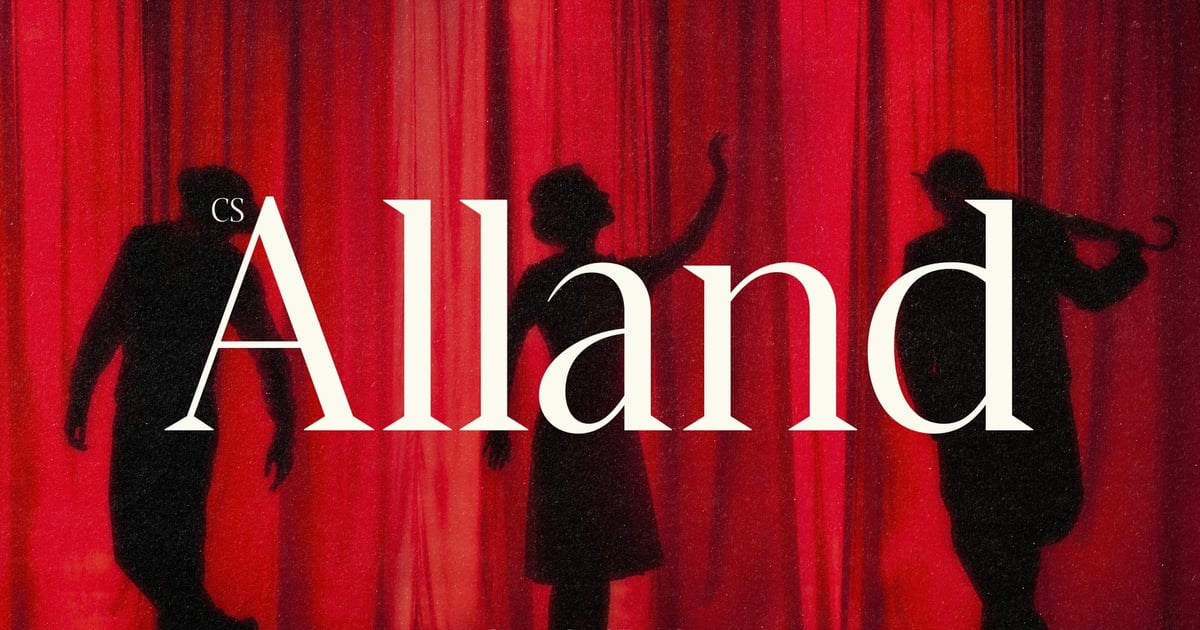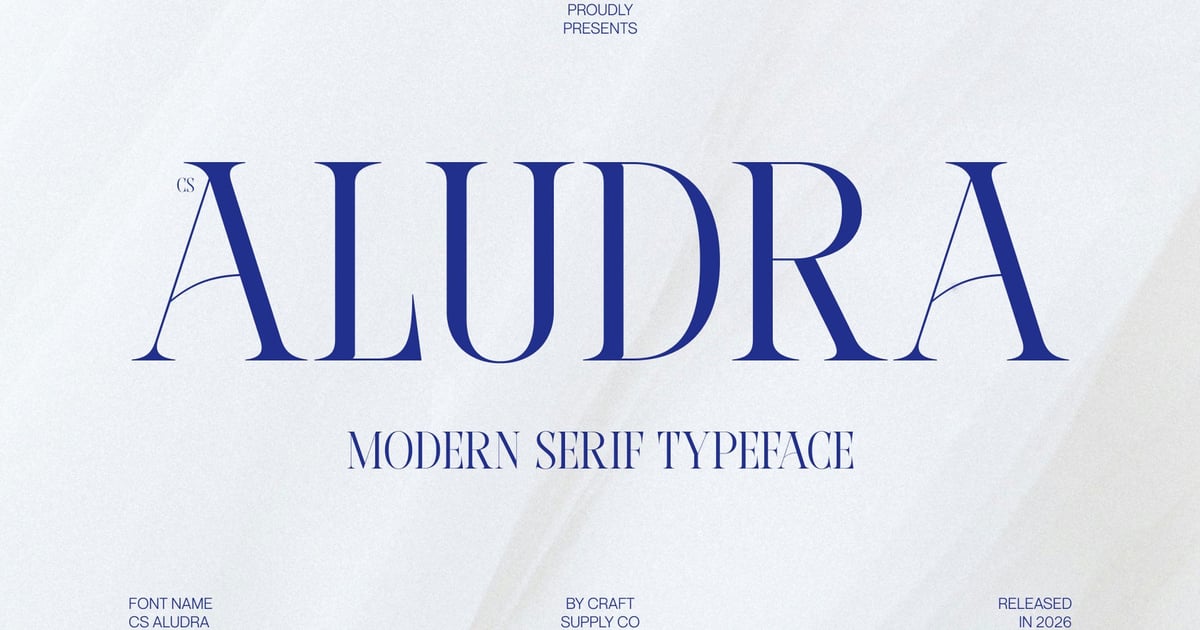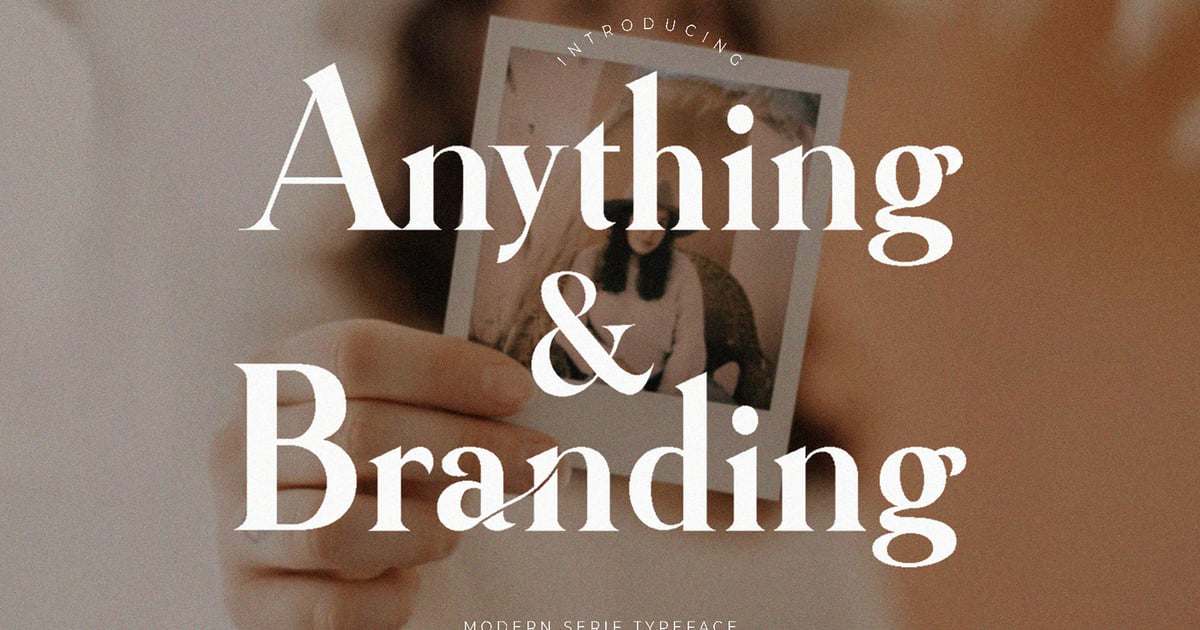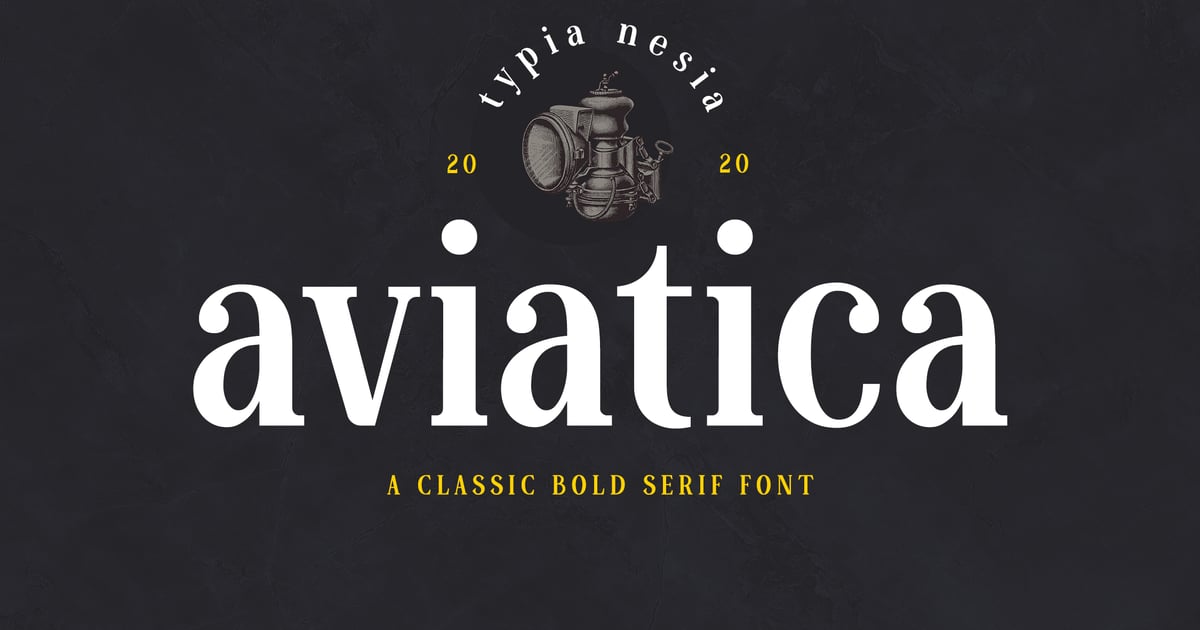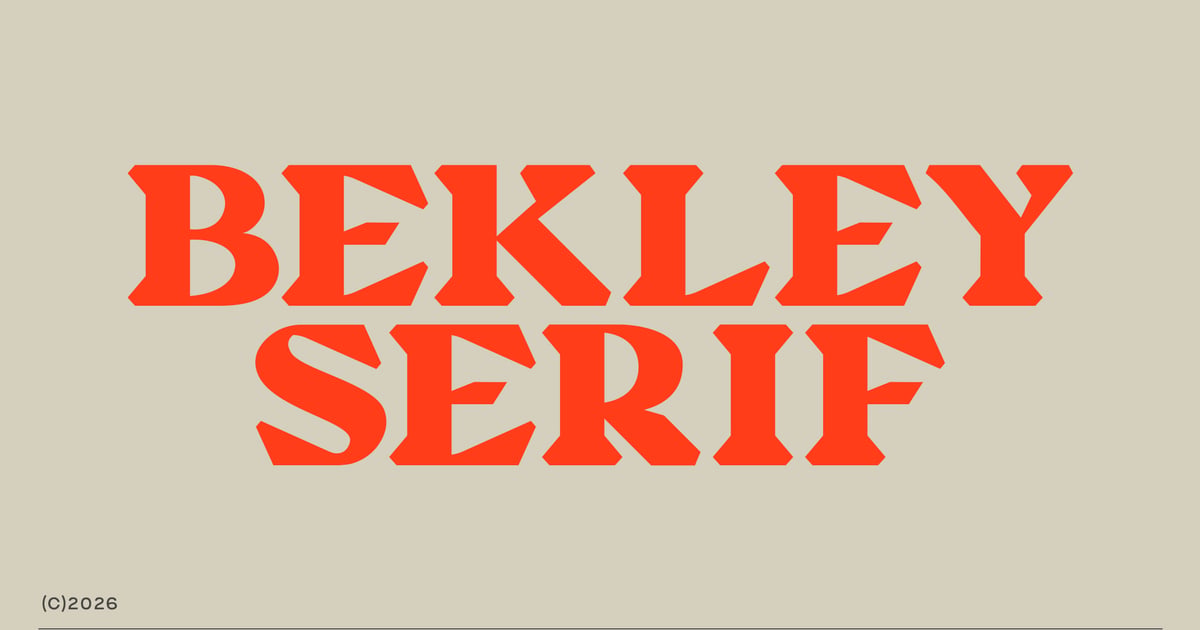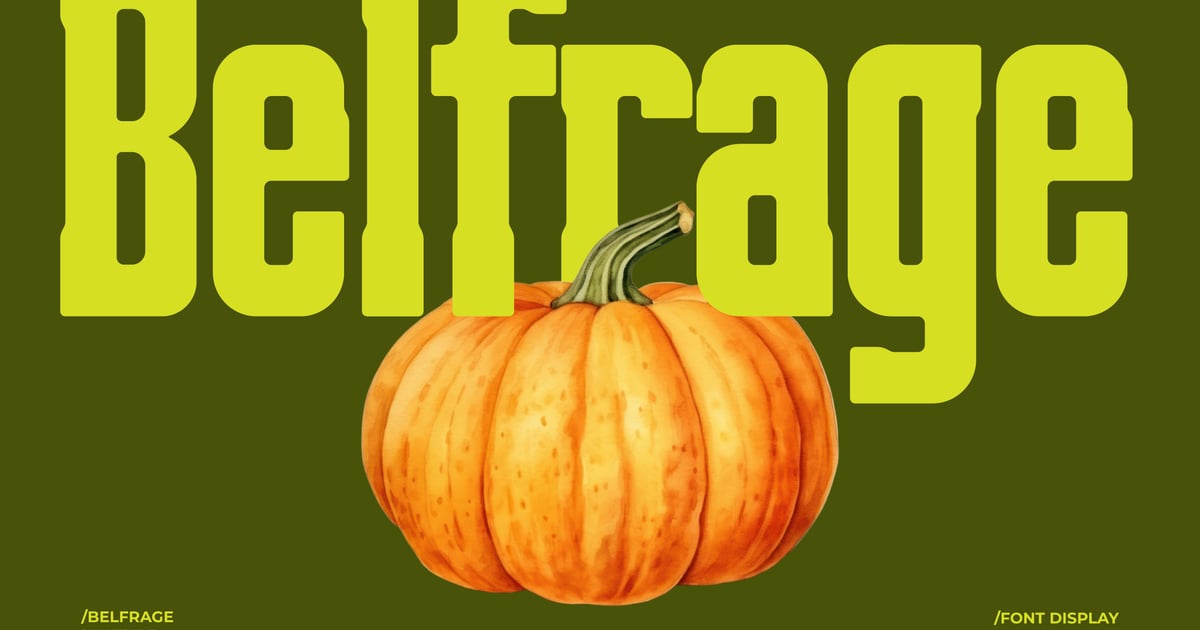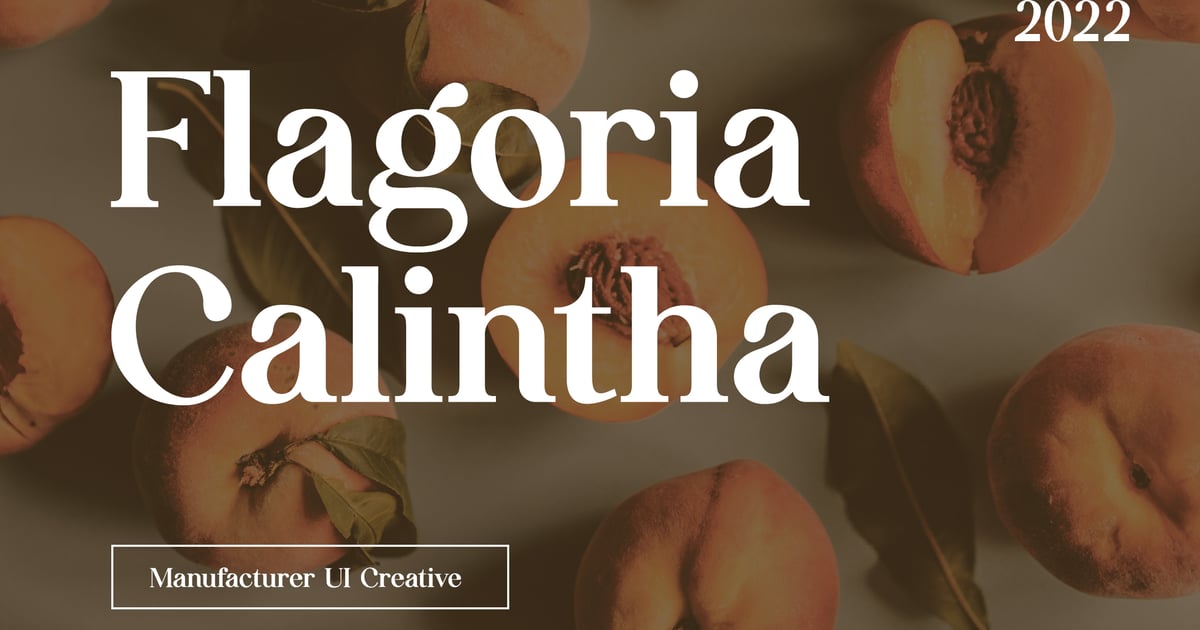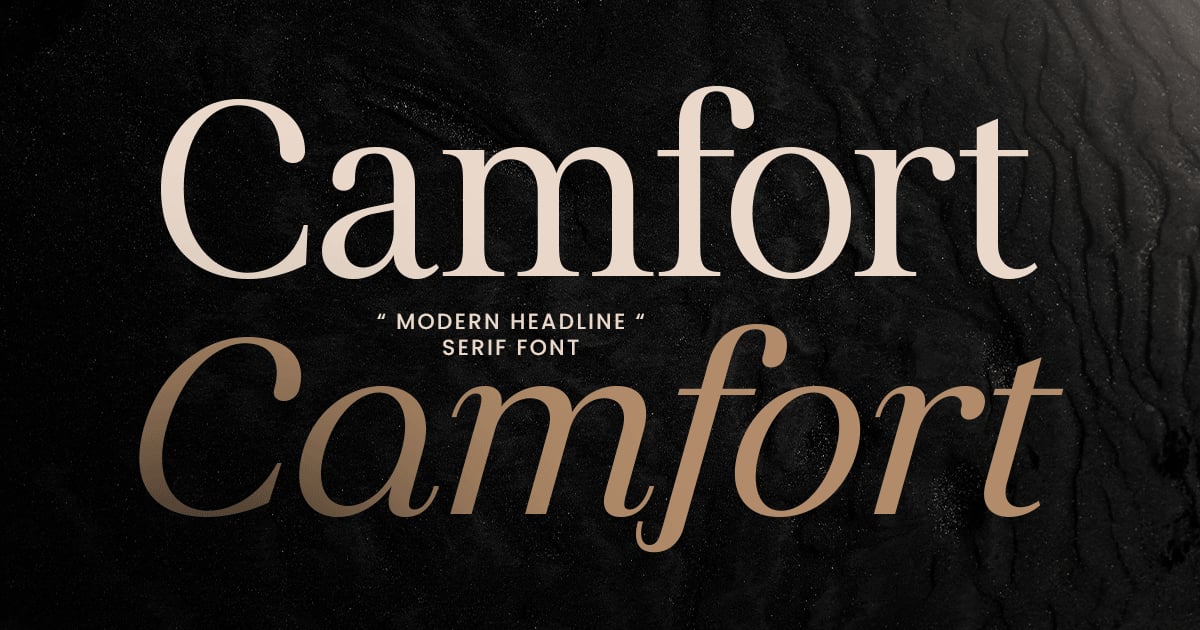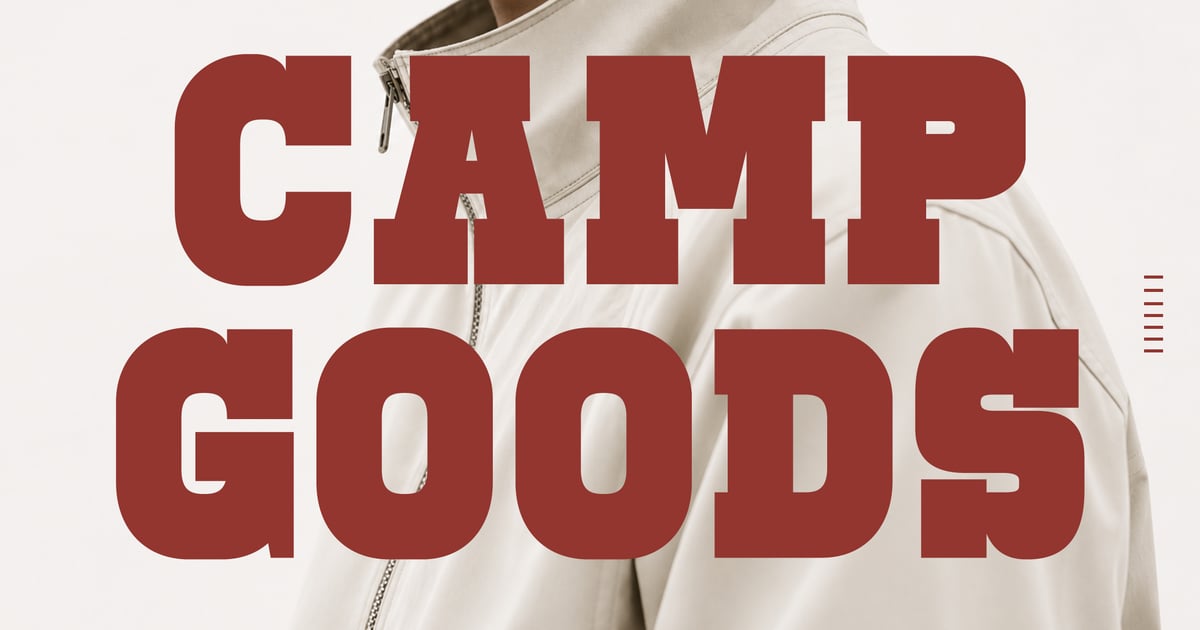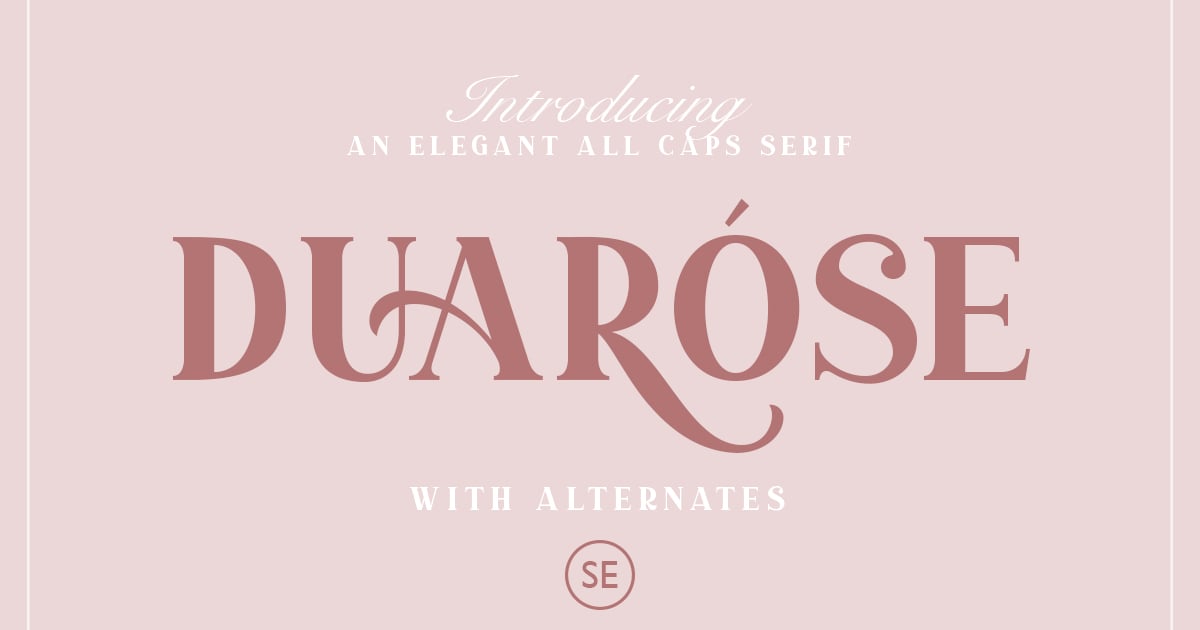
Best Serif Fonts of 2026: Modern and Classic Picks for Any Project
If you asked me to defend the serif font to a skeptic, I’d start with three names: a modern workhorse that holds up across branding and editorial, a timeless transitional that’s been quietly powering books and magazines for decades, and a high-contrast stunner built for headlines that stop you mid-scroll. I’ll get to the full list in a moment, but those three represent the spectrum this roundup covers — breadth of personality, not just polish.
This article pulls together the best serif fonts available right now, across five clear categories: modern serifs for contemporary branding, classic typefaces that resist trend cycles, elegant premium picks, readable body-text workhorses, and bold display faces for headlines and packaging. If you want to browse the wider universe before diving in, Envato’s serif catalog is a solid starting point.
How We Chose These Fonts
Readability at text sizes was non-negotiable — a beautiful font that turns to mush at 10pt didn’t make the cut. Weight and style range mattered too, because a typeface that only works in one weight is a typeface that will eventually box you in. Every font here earns its place by performing across both print and digital contexts, not just looking good in a mockup. And each one has genuine, distinguishing character — something that makes it recognizably itself, not just another generic serif filling a slot.
The Best Modern Serif Fonts for Contemporary Branding
Modern serif fonts walk a precise line: they carry the authority and warmth that serifs are known for, without looking like they belong on a Victorian-era apothecary label. These picks bring that balance to life across brand identities, editorial design, and everything in between.
Luxury Elegance – Modern Serif
Luxury Elegance - Modern Serif
Luxury Elegance brings sophistication to contemporary design with refined letterforms that balance traditional typographic principles and sleek, minimalist details. This modern serif font features clean lines and graceful proportions that work beautifully for high-end branding projects, wedding stationery, and editorial layouts. The typeface includes uppercase and lowercase characters, numbers, and punctuation marks to support a wide range of creative applications. Its polished aesthetic makes it particularly effective for luxury brands, elegant invitations, and premium packaging designs. Available in standard font formats for seamless integration into any design workflow.
Qurio Modern Serif Display
Qurio Modern Serif Display brings contemporary refinement to traditional letterforms with its clean lines and distinctive character shapes. This modern serif font balances sophistication with approachability, making it well-suited for editorial headlines, upscale branding, and luxury packaging designs. The typeface works particularly well at larger sizes where its carefully crafted details can shine. Perfect for projects requiring both elegance and readability, Qurio includes uppercase and lowercase alphabets, numerals, and essential punctuation. The font is delivered in standard desktop formats for easy integration into your design workflow.
Magode – Collection Modern Serif
Magode - Collection Modern Serif
Magode is a distinctive modern serif font collection that emphasizes dramatic contrast between thick and thin strokes. Its refined letterforms bring sophistication to editorial layouts, luxury branding, and elegant packaging designs. The high-contrast aesthetic gives headlines and display text a bold, contemporary presence while maintaining classical proportions. This typeface works beautifully for fashion magazines, upscale product labels, and refined digital content where visual impact matters. The collection supports multilingual typography and includes a complete character set with uppercase and lowercase letters, numerals, and punctuation marks in both OTF and TTF formats.
Aludra – Modern Serif Font
Aludra is a refined modern serif font that balances classical typography with contemporary elegance. Its letterforms feature clean lines and graceful proportions that work beautifully across both print and digital applications. The typeface shines in editorial layouts, luxury branding, wedding stationery, and sophisticated packaging design. With its polished aesthetic, Aludra brings a sense of timeless refinement to headlines and display text while maintaining excellent readability. The font supports standard character sets and comes in accessible formats, making it a versatile choice for designers seeking understated sophistication in their projects.
Louries – Modern Elegant Serif
Louries - Modern Elegant Serif
Louries brings sophistication and refinement to editorial design with its carefully balanced letterforms and graceful proportions. This modern serif font features clean lines paired with distinctive details that evoke both classic typography and contemporary aesthetics. The typeface works beautifully for luxury branding, magazine headlines, wedding stationery, and upscale packaging where elegance matters. With multilingual capabilities, uppercase and lowercase alphabets, numerals, and essential punctuation marks included, Louries delivers versatility across print and digital projects. Available in standard font formats for seamless integration into any design workflow.
Milcora Modern Ligature Serif
Milcora Modern Ligature Serif brings sophisticated elegance to editorial and branding projects through its refined letterforms and thoughtfully crafted ligatures. This modern serif font balances traditional typographic principles with contemporary styling, making it particularly effective for luxury packaging, magazine headlines, and upscale identity work. The design features graceful proportions and distinctive character details that elevate any layout. With comprehensive language support and professional-grade OpenType features, Milcora delivers versatility across print and digital applications. Files are provided in both TTF and OTF formats for seamless integration into any creative workflow.